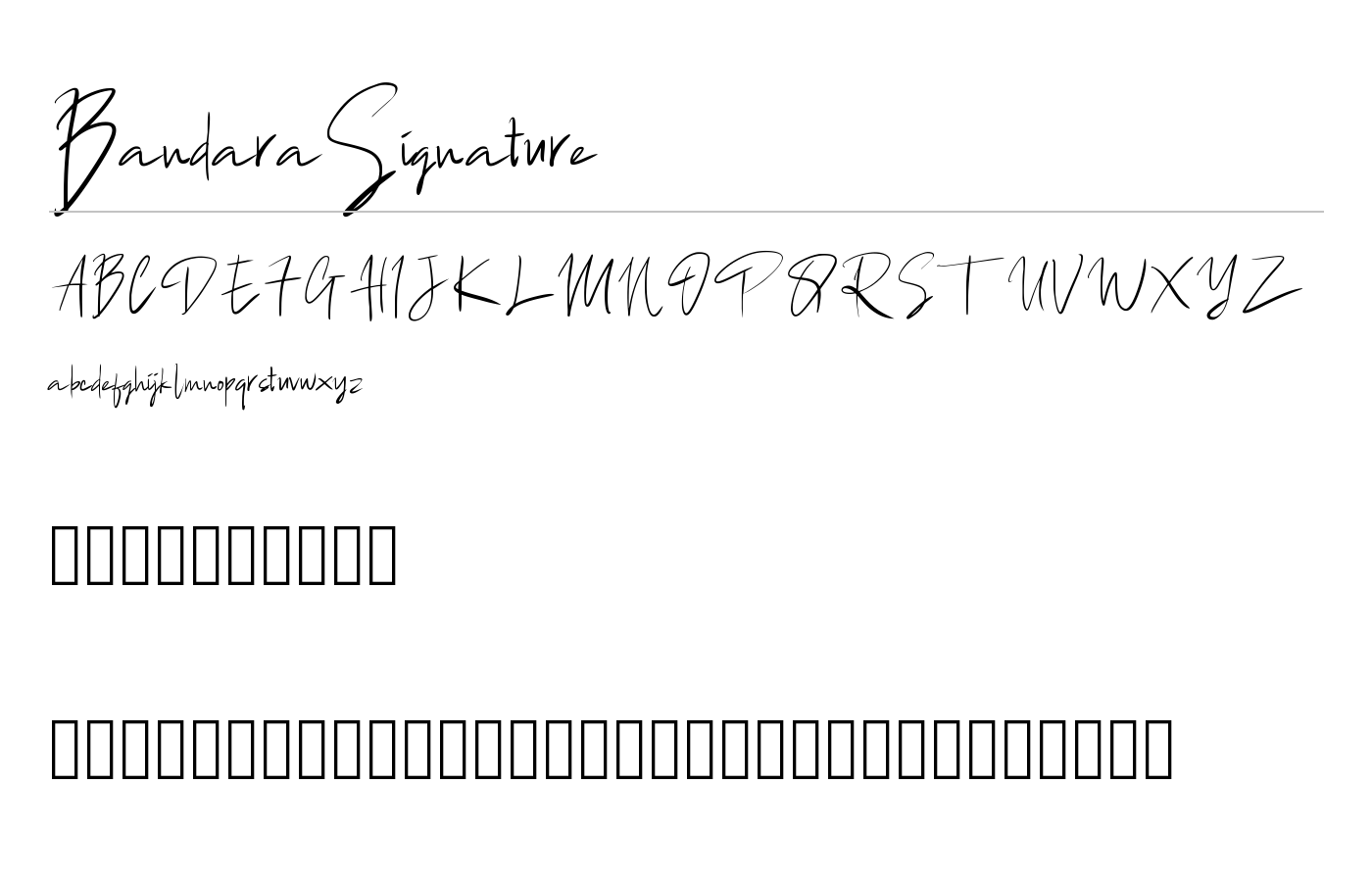
Bandara Signature is a delicate, handwritten script font that mimics natural, elegant penmanship with thin, fluid strokes and a casual, airy feel. Its tall, slender letterforms and unique character shapes make it perfect for adding a personal, sophisticated touch to branding, invitations, and stylish editorial design. This font works beautifully where a refined, artistic look is desired, conveying warmth and creativity.